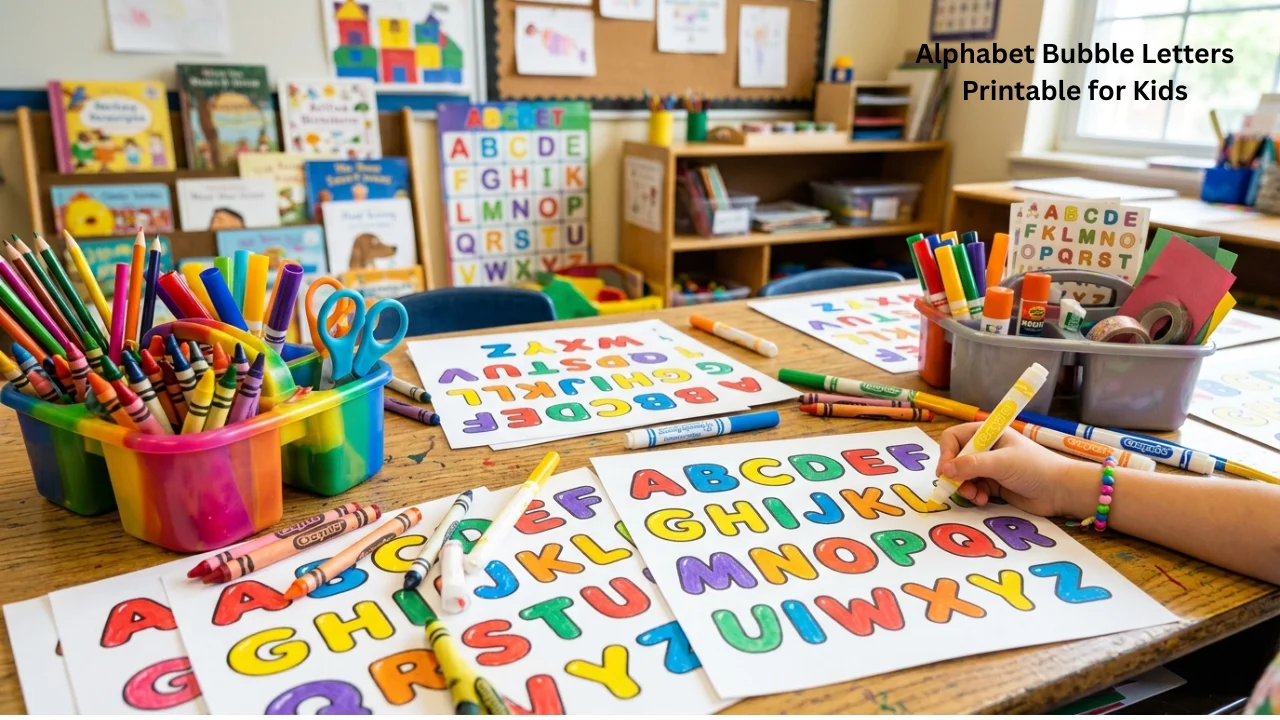
Alphabet Bubble Letters Printable for Kids, Crafts, and Learning
Bubble letters are large, rounded letters that look playful and creative. Many parents, teachers, students, and crafters use them for learning, decorating, and art projects. An alphabet bubble letters printable gives you ready-made bubble letters that you can print and use anytime. These printables save time and help children learn letters in a fun way.
From classroom posters to birthday banners, bubble letters fit many creative activities. They are simple to color, trace, cut out, and decorate. This guide explains everything you need to know about using bubble letter printables effectively.
What Is an Alphabet Bubble Letters Printable?
An alphabet bubble letters printable is a set of printable pages that contains bubble-style letters from A to Z. Each letter appears in a thick, rounded outline that is easy to trace or color.
People often use these printables for:
- Preschool learning
- Alphabet recognition
- Coloring activities
- Classroom decoration
- DIY crafts
- Scrapbooking
- Poster making
- Birthday banners
These printable sheets usually come in uppercase letters, lowercase letters, or both.
Why Bubble Letters Are Popular
Bubble letters are attractive because they look friendly and fun. Children enjoy working with them because the shapes are easy to follow.
Here are some major reasons why bubble letters remain popular:
| Benefit | Explanation |
|---|---|
| Easy to Read | Thick shapes make letters clear and visible |
| Fun for Kids | Rounded letters look playful |
| Great for Crafts | Perfect for cutting and decorating |
| Supports Learning | Helps with alphabet practice |
| Useful for All Ages | Kids and adults both enjoy using them |
Teachers also use bubble letters because they help students focus on letter shapes while improving creativity.
Different Types of Bubble Letter Printables
There are several styles available in an alphabet bubble letters printable collection. Each style works well for different activities.
Uppercase Bubble Letters
Uppercase letters are best for beginners. Large capital letters help children identify alphabet shapes quickly.
Examples include:
- A
- B
- C
- D
These letters work well for posters, flashcards, and signs.
Lowercase Bubble Letters
Lowercase letters help children practice reading and writing skills. Many worksheets combine uppercase and lowercase versions together.
Full Alphabet Sets
Some printables provide all 26 letters in one document. These sets are useful for classrooms and home learning.
Decorative Bubble Letters
Decorative versions include:
- Pattern-filled letters
- Cartoon styles
- Fancy outlines
- Themed letters
These are popular for party decorations and art projects.
Educational Benefits of Bubble Letter Printables
Using bubble letters can improve many early learning skills. Children learn faster when activities feel fun and creative.
Letter Recognition
Children identify shapes and sounds more easily when they color or trace letters.
Fine Motor Skills
Coloring and tracing improve hand control and pencil grip.
Creativity Development
Kids can decorate letters with:
- Colors
- Stickers
- Glitter
- Patterns
Memory Improvement
Hands-on activities help children remember letters better than simple memorization.
Early Writing Practice
Tracing large bubble letters prepares children for handwriting.
Best Ways to Use Alphabet Bubble Letters
There are many creative ways to use an alphabet bubble letters printable at home or in school.
Create Classroom Decorations
Teachers often print large bubble letters to create:
- Welcome signs
- Bulletin boards
- Reading corners
- Name displays
Make Personalized Banners
Parents can use bubble letters for:
- Birthday banners
- Holiday signs
- Baby shower decorations
Practice Coloring Activities
Children enjoy coloring bubble letters with crayons, markers, or paint.
Build Word Games
You can cut out letters and create:
- Spelling games
- Vocabulary practice
- Name-building activities
Use for Art Projects
Bubble letters work perfectly for:
- Scrapbooks
- Posters
- Greeting cards
- DIY crafts
How to Choose the Right Bubble Letter Printable
Not every printable works for every project. Choosing the right design saves time and improves results.
Consider the Age Group
For preschoolers:
- Use large simple letters
- Avoid detailed patterns
For older children:
- Use decorative styles
- Add creative designs
Check Print Quality
High-quality printables produce sharp and clean outlines.
Pick the Right Size
Large letters work best for posters. Smaller letters are better for worksheets and crafts.
Choose Easy-to-Color Designs
Simple outlines are easier for young children to color neatly.
Bubble Letter Activities for Kids
Creative activities make learning more exciting. Here are some fun ideas using bubble letters.
| Activity | Purpose |
|---|---|
| Letter Coloring | Improves creativity |
| Tracing Practice | Builds writing skills |
| Alphabet Matching | Supports letter recognition |
| Name Craft | Personal learning activity |
| Word Building | Helps vocabulary growth |
These activities keep children engaged while teaching important literacy skills.
Bubble Letters for Preschool Learning
Preschool teachers often use bubble letters because they make alphabet lessons interactive.
Young children respond well to visual learning. Large outlined letters are easier for them to recognize and trace.
An alphabet bubble letters printable can support:
- Phonics lessons
- Letter sound practice
- Coloring time
- Interactive games
Preschool classrooms also use bubble letters for themed learning activities during holidays and special events.
Creative Craft Ideas Using Bubble Letters
Bubble letters are not only educational. They are also perfect for creative DIY projects.
Wall Art
Decorate letters with paint, paper, or stickers and hang them on bedroom walls.
Greeting Cards
Use colorful bubble letters to make birthday or holiday cards.
Scrapbooking
Bubble letters add a fun design element to scrapbook pages.
School Projects
Students often use bubble letters for:
- Science fair titles
- Poster headings
- Presentation boards
Party Decorations
Bubble letters can spell names, messages, or themes for events.
Tips for Printing Bubble Letters
Printing correctly improves the final result.
Use Thick Paper
Cardstock works better for crafts because it is stronger than normal paper.
Print in High Quality
Choose high-resolution print settings for sharper outlines.
Keep Extra Copies
Children often enjoy repeating coloring activities.
Organize Letters
Store printed letters in folders or envelopes for future use.
How Bubble Letters Help Special Learning Needs
Bubble letters can support children with learning challenges because the large shapes are easier to follow.
Children with:
- Fine motor difficulties
- Visual learning preferences
- Early developmental delays
often respond well to tracing and coloring activities.
The bold outlines provide a clear visual structure that improves focus and understanding.
Printable Bubble Letters for Seasonal Activities
Seasonal learning activities become more exciting with themed bubble letters.
Holiday Ideas
Use bubble letters for:
- Christmas crafts
- Halloween posters
- Easter banners
- Summer camp signs
School Events
Teachers often prepare themed classroom displays during:
- Back-to-school season
- Graduation events
- Reading week
An alphabet bubble letters printable makes these decorations quick and simple.
Digital vs Printable Bubble Letters
Both digital and printable formats offer benefits.
| Type | Advantages |
|---|---|
| Printable Letters | Easy for coloring and crafts |
| Digital Bubble Letters | Great for graphic design |
| Hand-Drawn Bubble Letters | Adds personal creativity |
Printable formats remain the most popular choice for children and classrooms.
Common Mistakes to Avoid
Some people make simple mistakes when using bubble letter printables.
Choosing Overly Complex Designs
Very detailed letters may frustrate younger children.
Printing Too Small
Tiny letters are difficult to trace and color.
Using Thin Paper for Crafts
Thin paper tears easily during cutting activities.
Ignoring Age Appropriateness
Always match the design difficulty to the child’s skill level.
Why Parents and Teachers Love Bubble Letter Printables
Parents appreciate activities that combine fun and learning. Teachers value resources that support creativity while improving literacy skills.
An alphabet bubble letters printable gives children a hands-on learning experience that feels more enjoyable than traditional worksheets.
The flexibility of bubble letters makes them useful for:
- Home learning
- Classroom activities
- Art projects
- Holiday crafts
- Personalized decorations
They are affordable, reusable, and easy to customize.
Conclusion
Bubble letters continue to be one of the most useful educational and creative tools for children and adults. An alphabet bubble letters printable helps with letter recognition, handwriting preparation, creativity, and classroom decoration. These printables are simple to use and work well for learning activities, crafts, banners, and art projects.
Whether you are a teacher planning classroom activities or a parent searching for fun educational resources, bubble letter printables provide endless possibilities. Their playful design keeps children engaged while helping them build important literacy and motor skills.